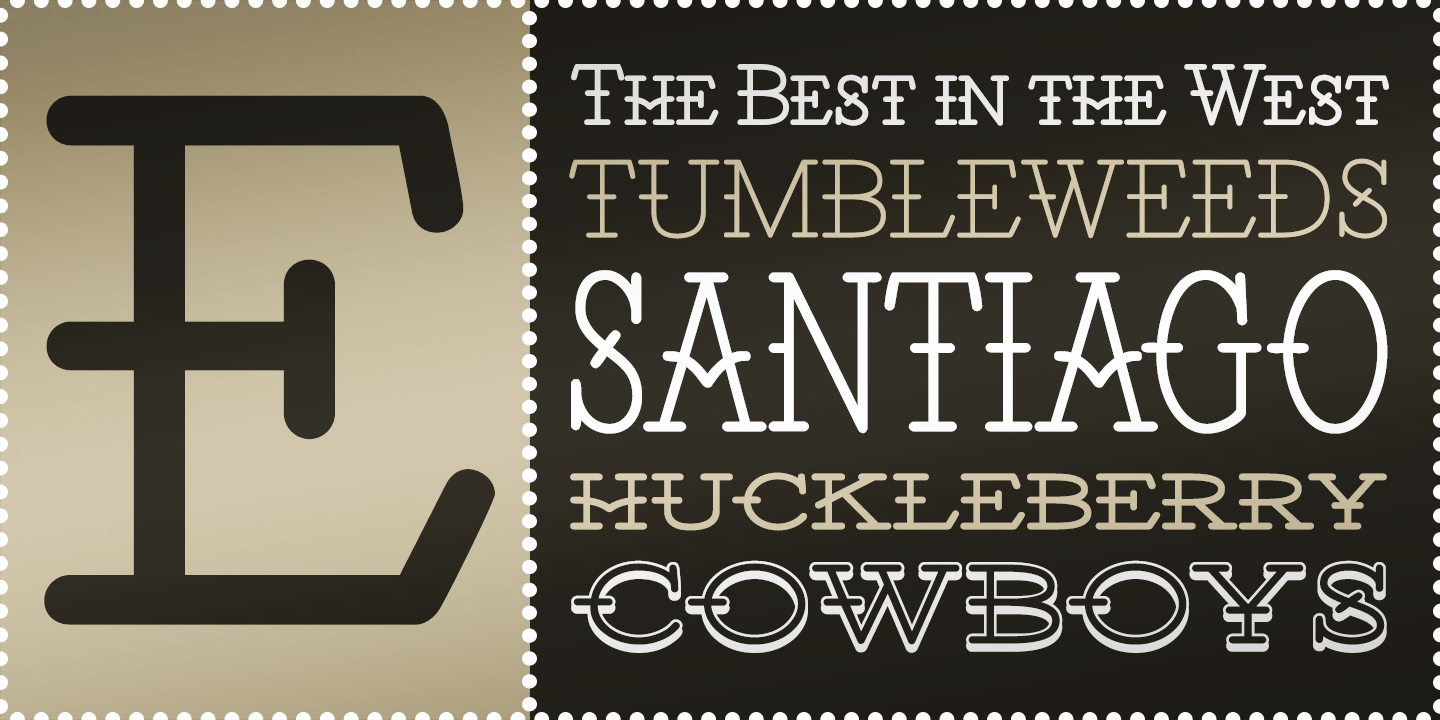
Santiago BTN
Santiago is a western-wanted-poster-influenced typestyle with a clean and friendly feel to it. Almost comic-like in its simple and clean appearance, with caps and smallcaps settings, and a variety of weights and widths from condensed to wide, regular…